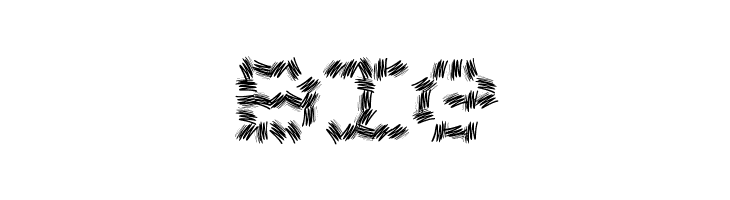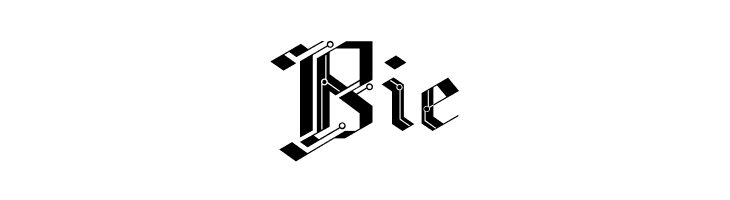
A bold, italic font with a dynamic and edgy style.
A bold, dynamic italic font with a rugged, adventurous style.
An elegant, calligraphic script font with ornate, flowing characters.
A rugged, distressed font with an organic, hand-crafted appearance.
A bold, distressed font with a hand-crafted, artistic look.
A tall, slender, and whimsical font with a hand-drawn appearance.
A geometric, paper-fold inspired font with bold, angular lines.
A playful, double-outline font with looping, swirling characters.
A playful, bold, and rounded font with a hand-drawn, comic-like style.
A bold, expressive handwritten font with dynamic strokes and a playful style.
A bold, playful handwritten font with a dynamic tilt.
A bold, angular font with a futuristic and geometric design.
A playful, hand-drawn font with bold, rounded characters and a whimsical style.
A decorative font with organic, swirling patterns and a whimsical style.
An ornate gothic font with elaborate swirls and bold blackletter elements.
A bold, distressed font with a vintage, industrial feel.
A whimsical, hand-drawn font with a playful and creative style.
A playful, casual handwritten font with a lively and informal style.
A playful, casual handwritten font with irregular strokes and a friendly appearance.
A bold, handwritten font with expressive, flowing strokes.
A playful, handwritten font with a whimsical and friendly appearance.
A playful, casual handwritten font with a dynamic and lively appearance.
A playful, handwritten font with a casual and dynamic style.
A playful, casual handwritten font with irregular strokes and a lively feel.
A playful, hand-drawn font with irregular, whimsical strokes.
A playful, casual handwritten font with an informal and organic style.
A playful, casual handwritten font with irregular strokes and a whimsical appearance.
A playful doodle font with seasonal and thematic illustrations.
A playful, handwritten font with dynamic strokes and a casual style.
A playful, casual handwritten font with a dynamic and informal style.